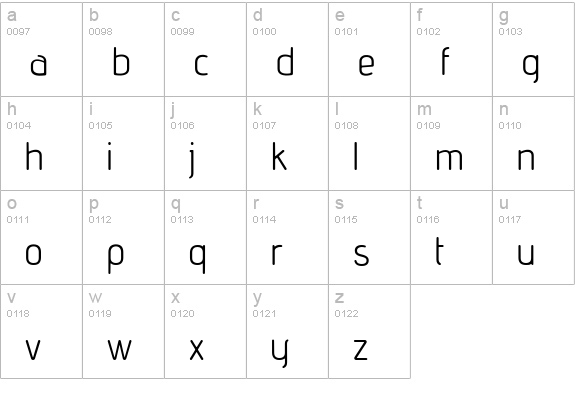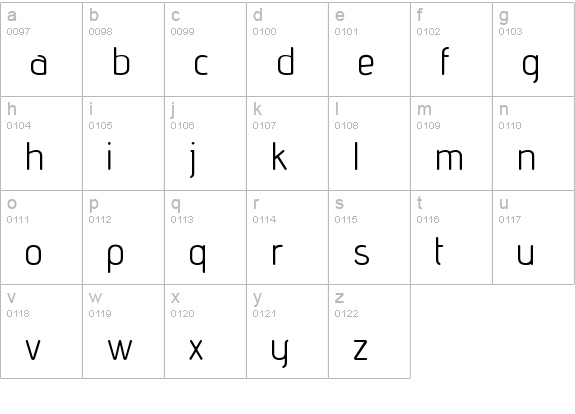
Advent Rounded font is a modern and versatile typeface that combines elegance with a touch of playfulness. Its rounded edges give a friendly and approachable feel, making it perfect for a wide range of design projects. Whether you're creating invitations, posters, logos, or branding materials, this font will add a unique charm to your creations. The best part is that Advent Rounded font is available for free download at FontsMarket.com. So you can easily access this high-quality font without any cost. Don't miss out on the opportunity to enhance your designs with this stylish and contemporary typeface. Download Advent Rounded font today and let your creativity shine!